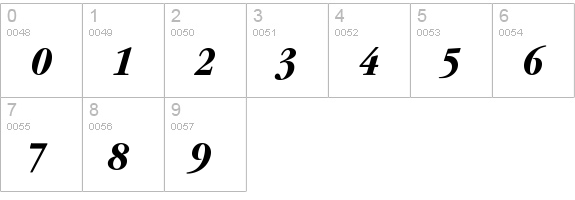
Introducing GaramondEF-BoldCondensItalic, a stunning font that combines elegance, boldness, and a touch of sophistication. This font stands out from the crowd with its unique condensed italic style, making it ideal for creating eye-catching designs that demand attention. GaramondEF-BoldCondensItalic is crafted with utmost precision, ensuring every curve and line exudes a sense of grace and refinement. Its bold nature adds a powerful impact to any project, making it perfect for headlines, titles, logos, and other prominent design elements. The condensed italic format adds a dynamic flair, giving your text a sense of movement and energy. But what makes GaramondEF-BoldCondensItalic truly exceptional is that it is freely available to download at FontsMarket.com. Yes, you read that right! This exceptional font can be yours without any cost, allowing you to elevate your designs without breaking the bank. FontsMarket.com provides a hassle-free and convenient platform where you can easily access and download this font, ensuring that you have the creative freedom to bring your visions to life. Whether you're a professional designer, a student working on a project, or simply someone with a passion for typography, GaramondEF-BoldCondensItalic is the perfect addition to your font collection. Its versatility and beauty make it suitable for a wide range of applications, including print and digital designs. So why wait? Discover the captivating allure of GaramondEF-BoldCondensItalic and elevate your designs to new heights. Download this extraordinary font from FontsMarket.com today and unleash your creativity without any limitations.